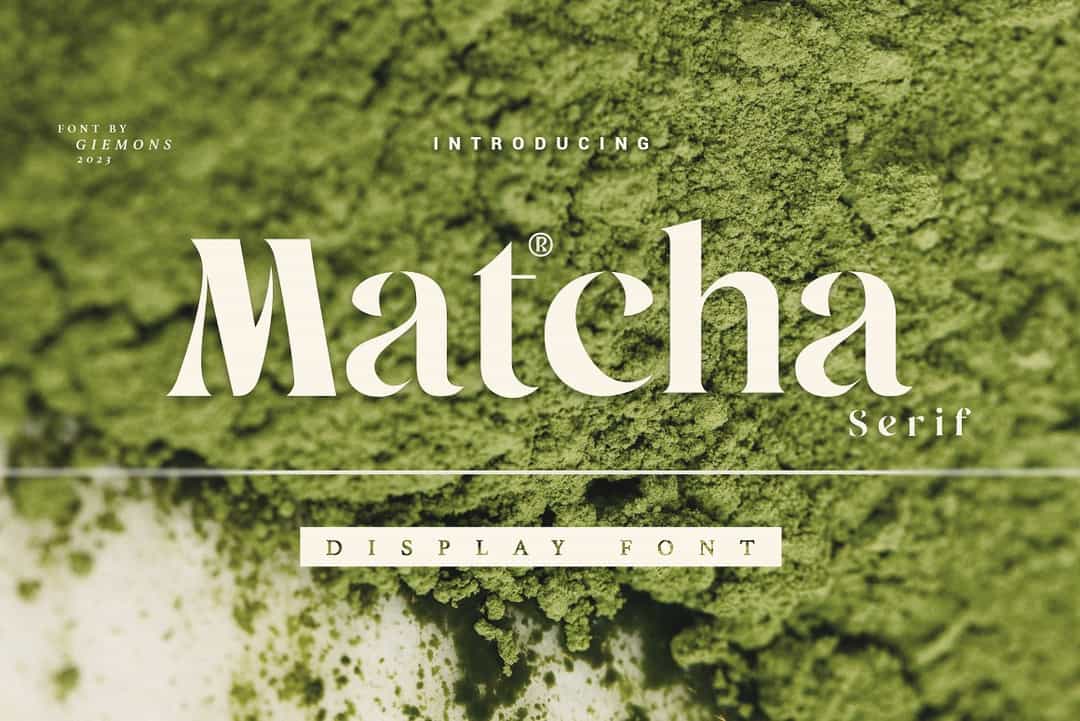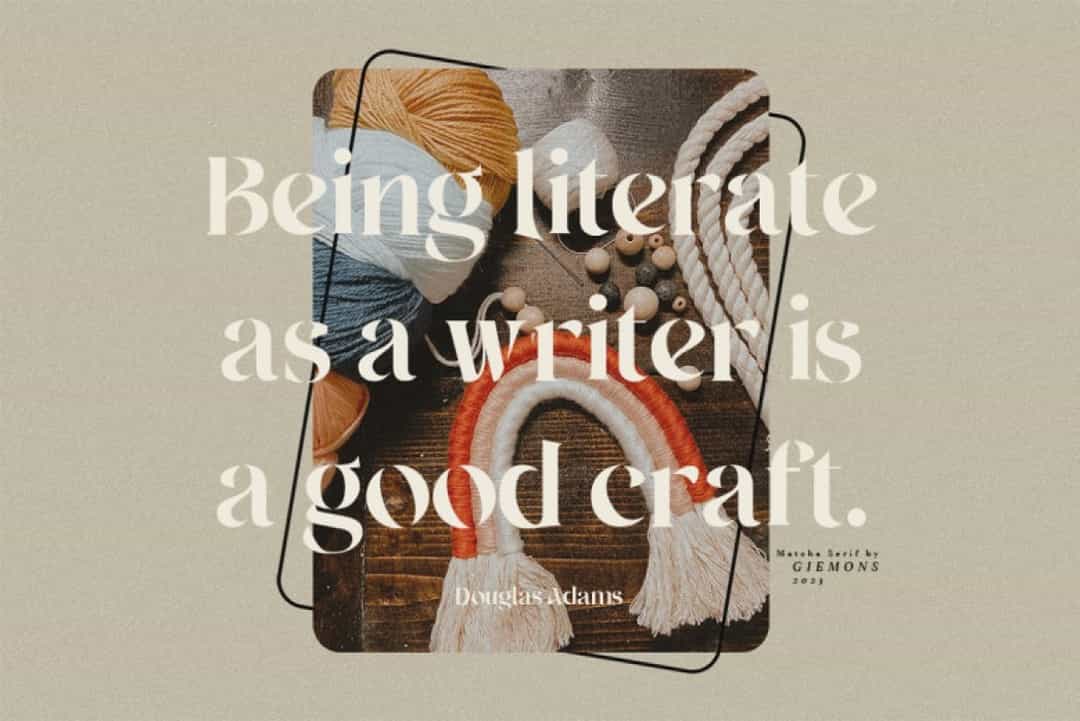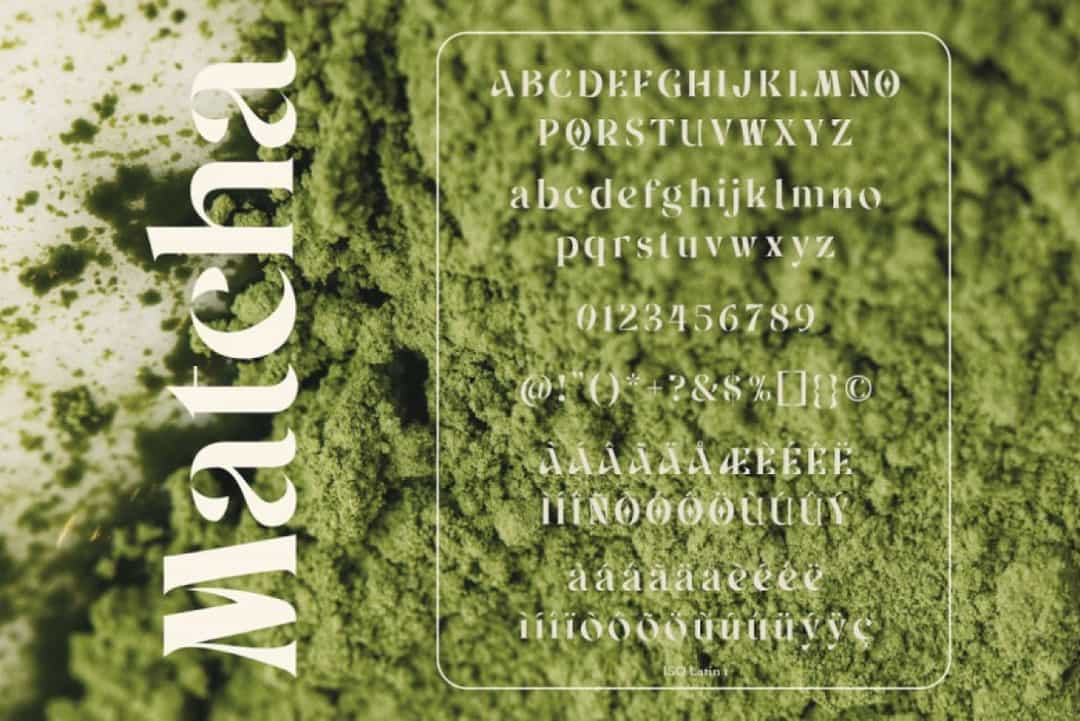
Matcha is a serif display font. A mix of Modern and Vintage influences, it exudes both loudness while remaining softly swaying and bouncy; perfect for branding, logo and digital concept creation, promotion design posters flyers graphic design projects that require futuristic appearances or any time you require a futuristic appearance.